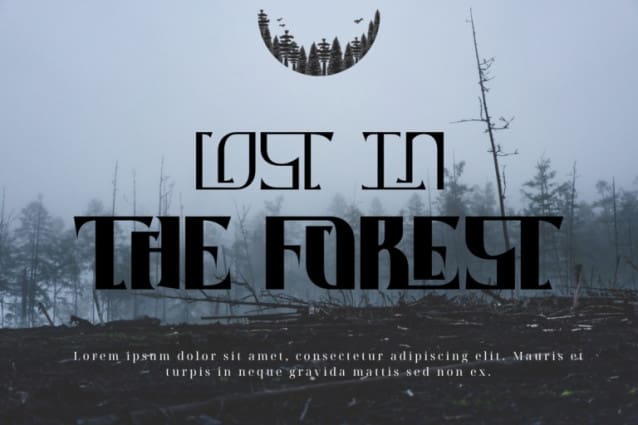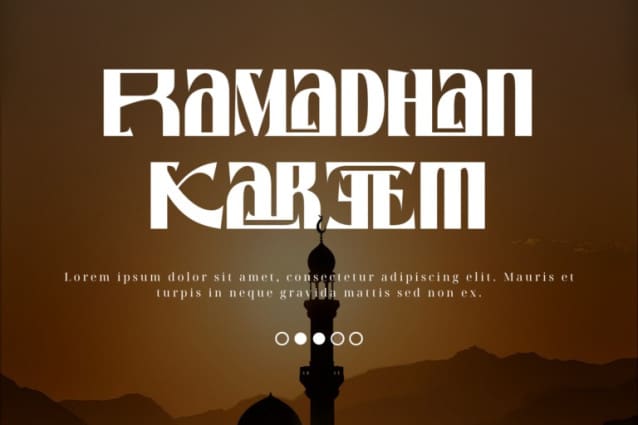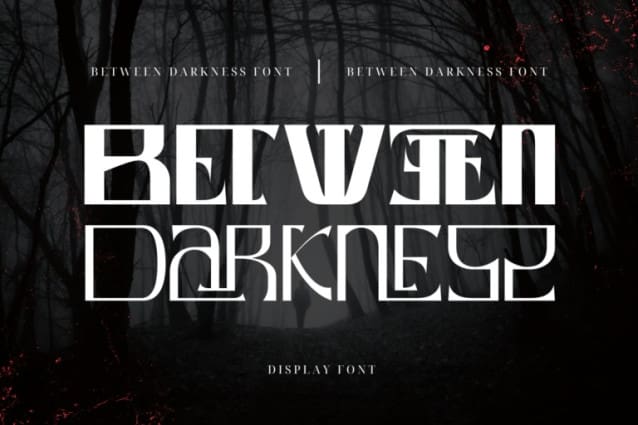
Between Darkness Font
Between Darkness Font, a modern, minimalist font designed to elevate your creative projects. With clean lines and a sleek look, it’s perfect for adding a touch of style to any design. This modern and classy Serif font has a beautiful character. This font is suitable for invitation card designs, cool logos, movie titles, movie names, business cards, book titles, brand names, and various other designs.
Between Darkness was built with OpenType features and includes 100 ligatures, alternate, numbers, punctuation, and it also supports other languages.